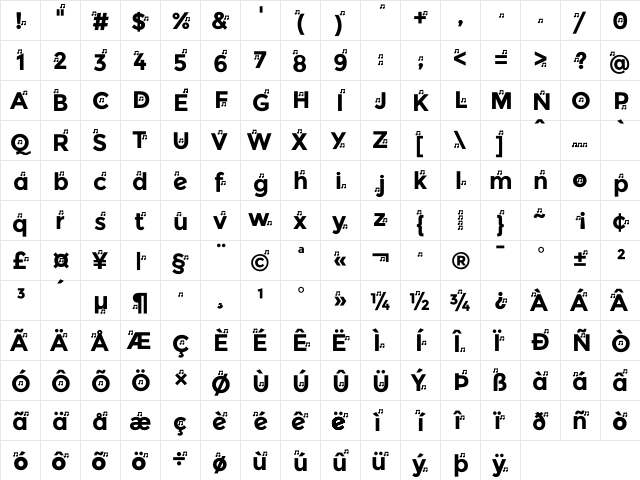
YentNotes Bold
| Foundry | Julieta Ulanovsky |
| Designer | Julieta Ulanovsky |
Design Context for YentNotes Typeface
YentNotes offers clean, dependable letterforms without strong stylistic allegiance, making it a practical choice for designers who need flexibility. Its bold stroke weight gives it real presence on the page.